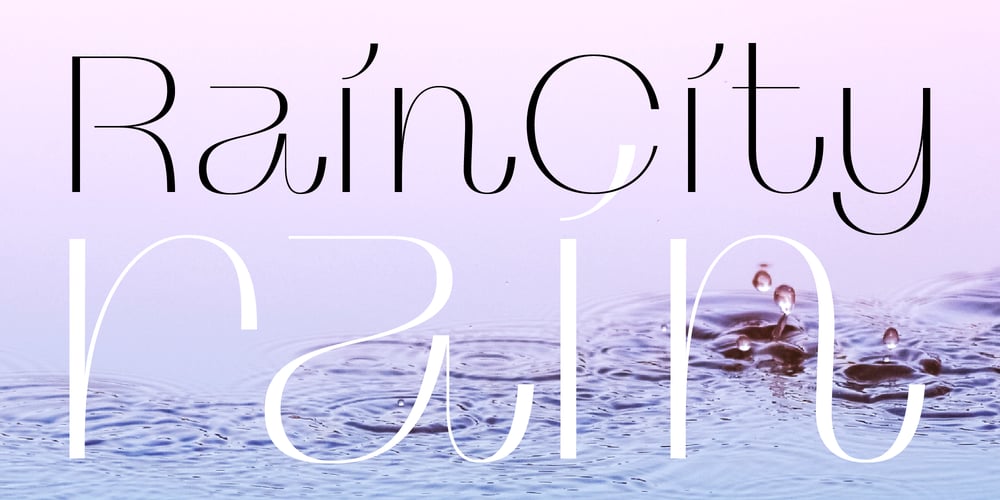
RainCity
RainCity font
RainCity Font Family was designed by Soung-ryung Shin and published by SRS Type. RainCity contains 2 styles and family package options. RainCity is a beautiful contemporary sans-serif font with delicate curves. Inspired by the movement of raindrops on the street, we created this font to evoke the excitement of a rainy day in Paris. Using this font will give you an elegant, dynamic, and unique image. RainCity is suitable for a variety of design work such as branding, poster design, and editorial design. It is a display font available in two weights, Regular and Bold.